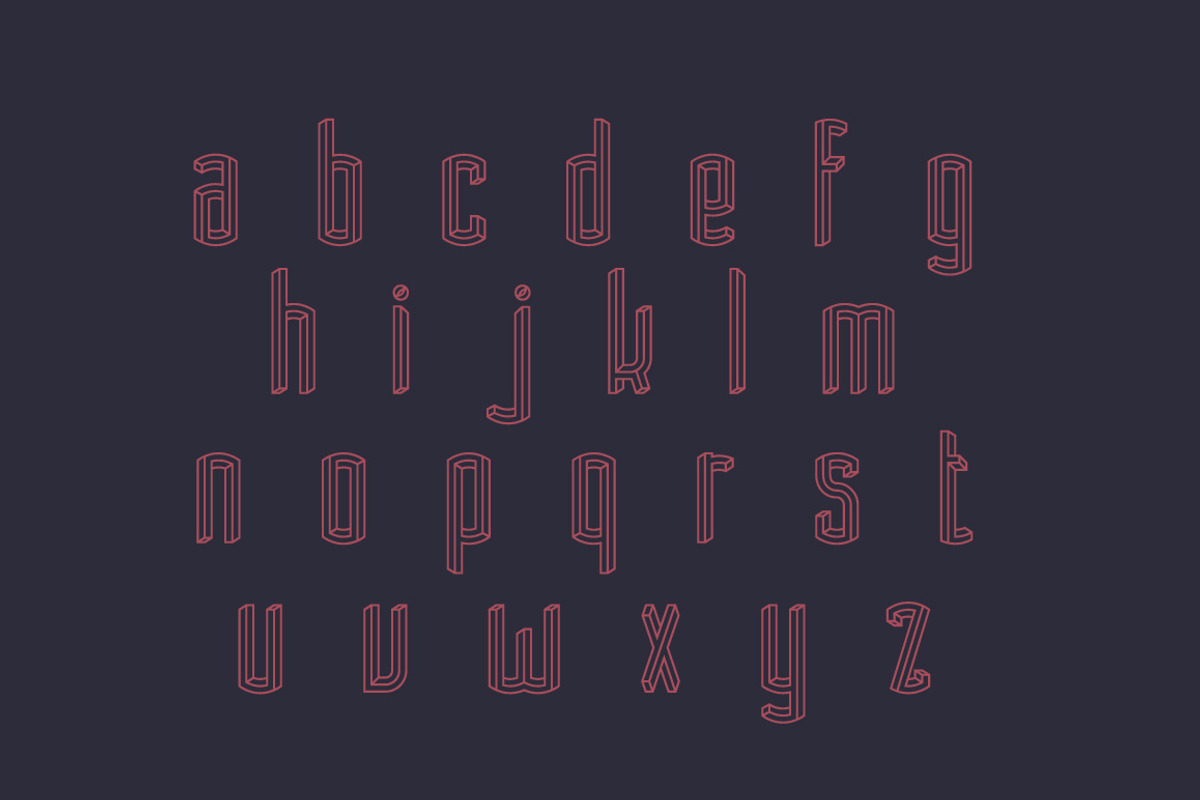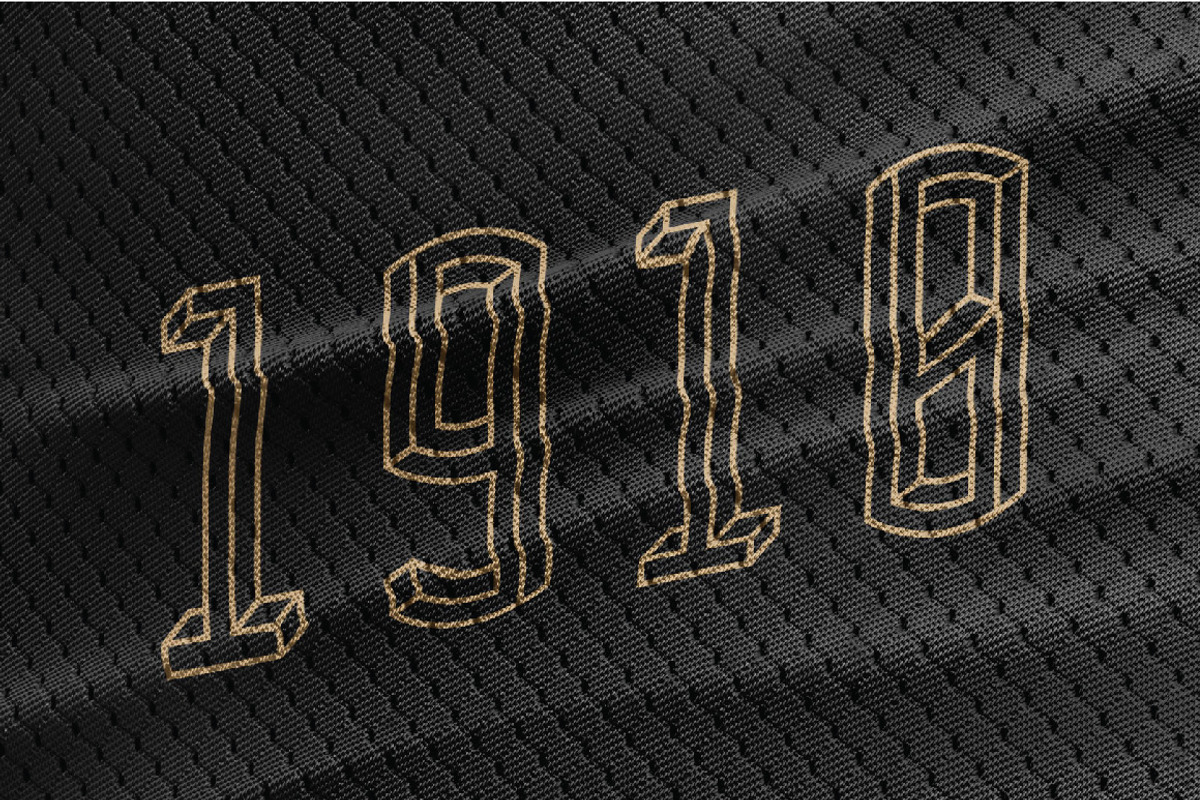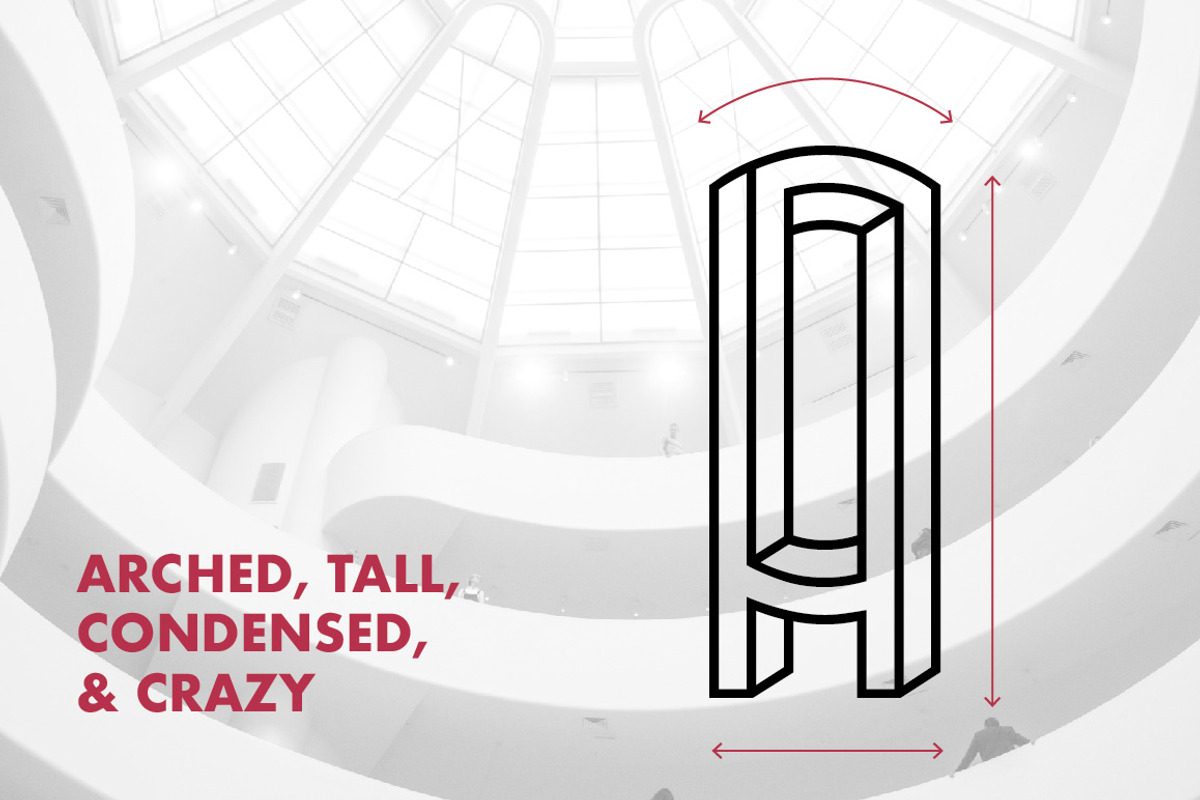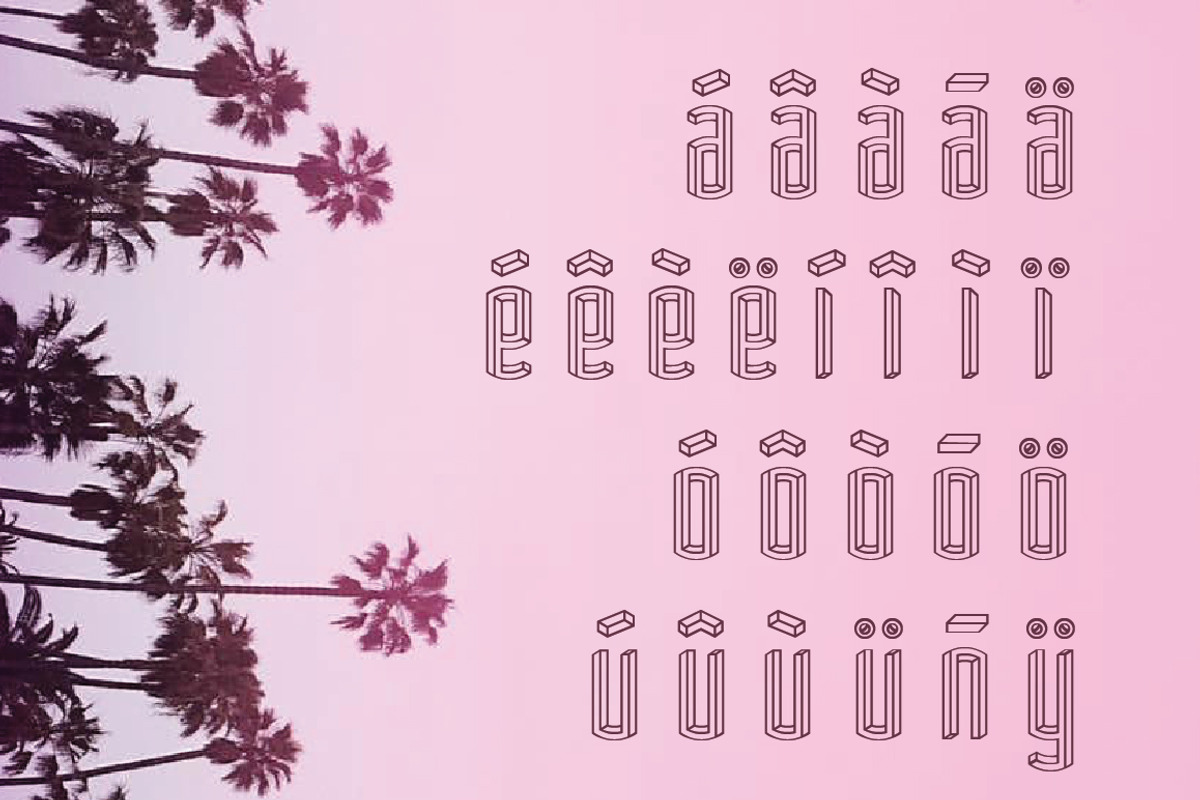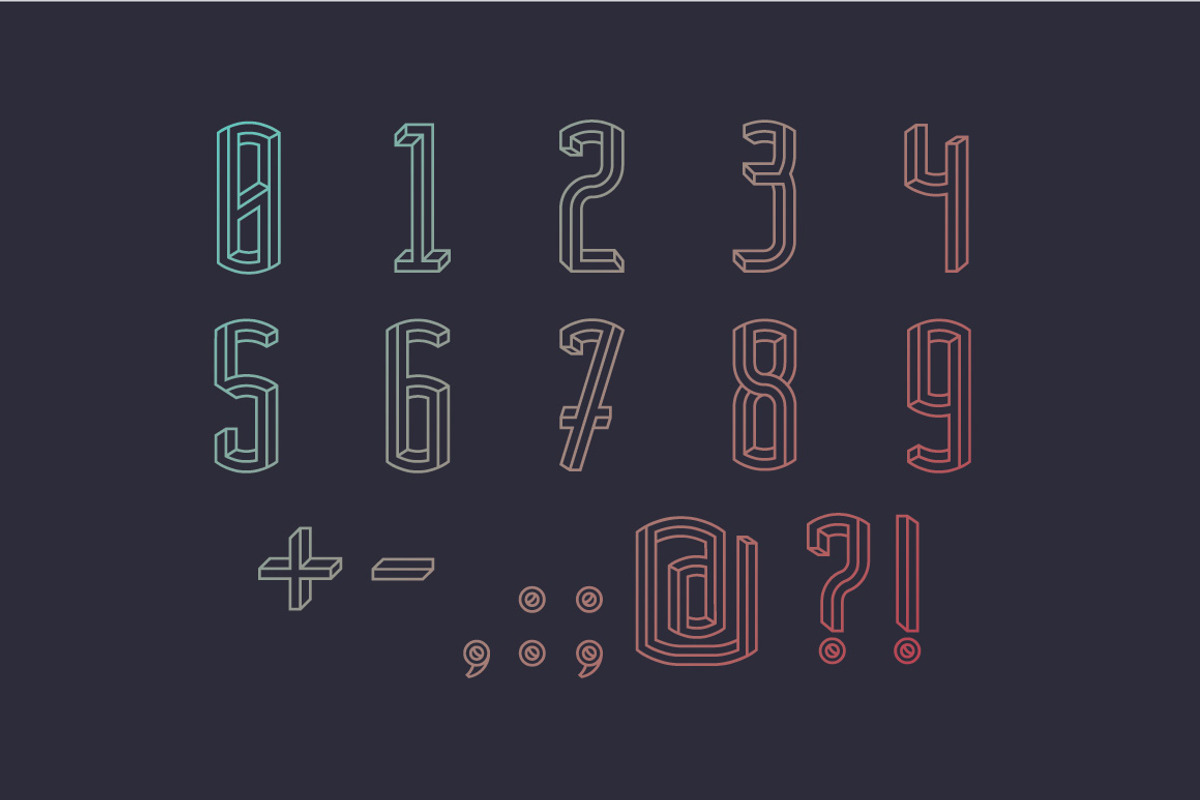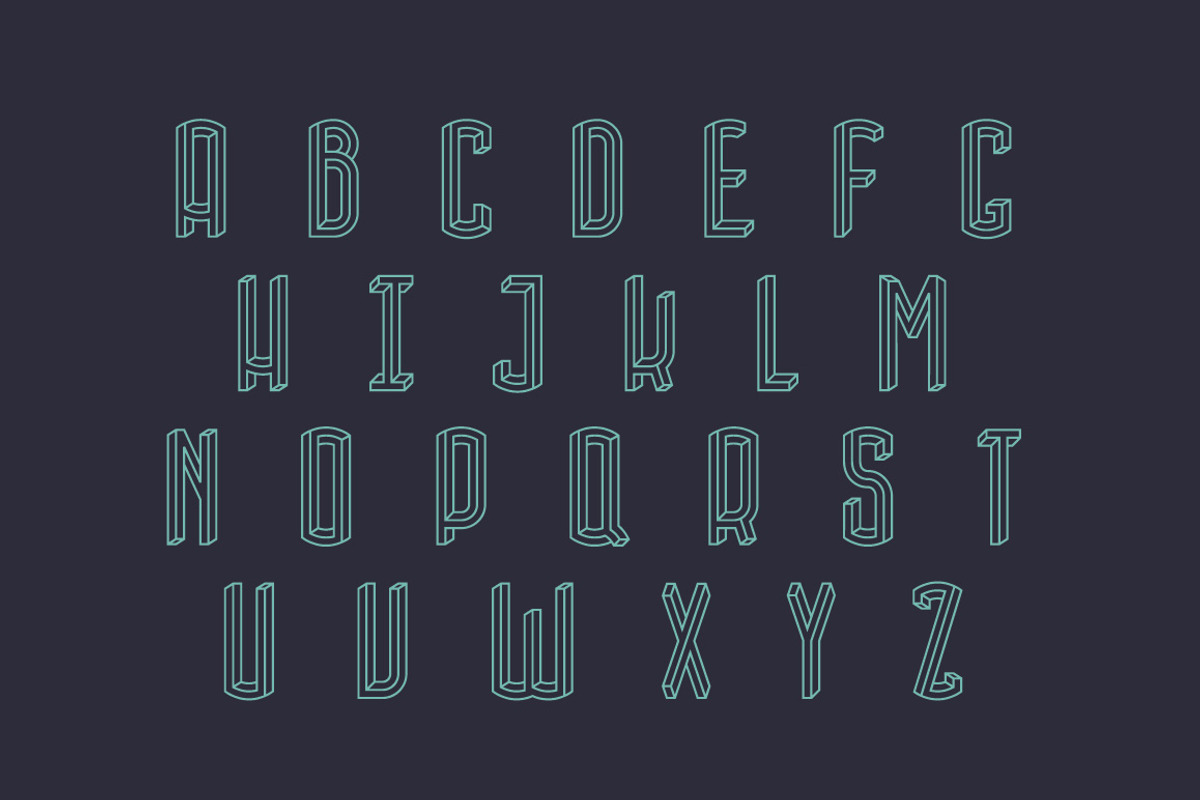
Aclo font
Aclo font by Pedro Azedo is a font selected for branding, posters, packaging, typography.
Why Aclo font is worth a look
Aclo font by Pedro Azedo fits naturally into Branding, posters, packaging, typography.